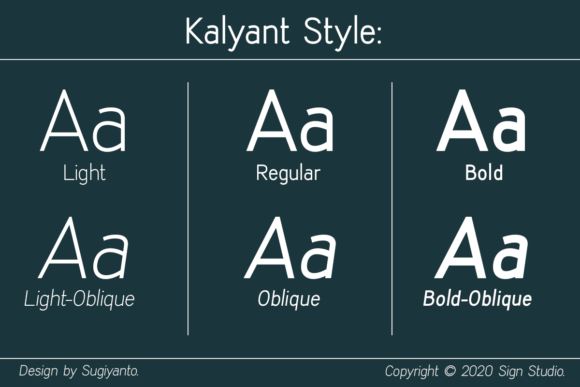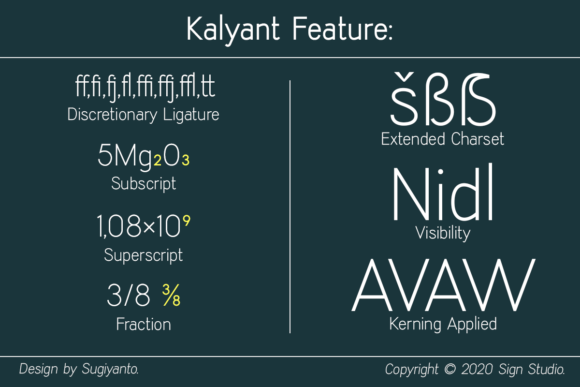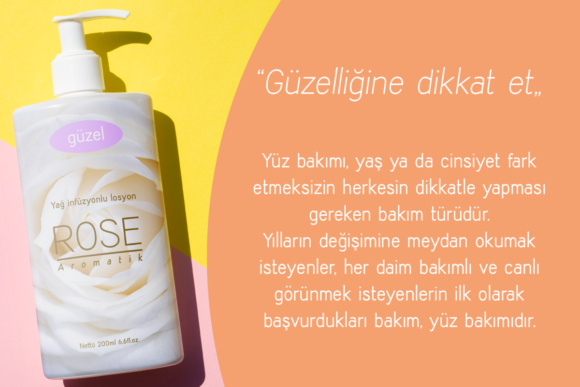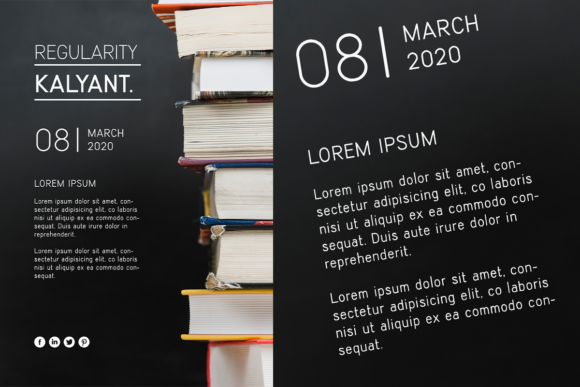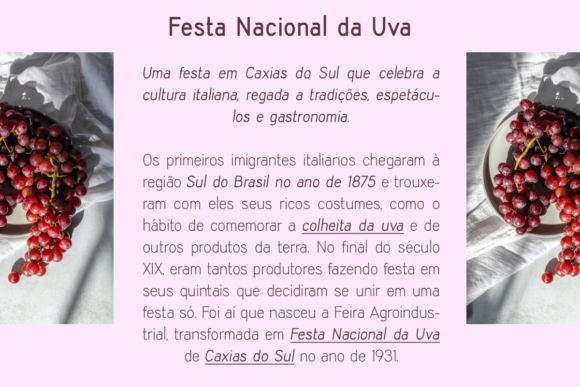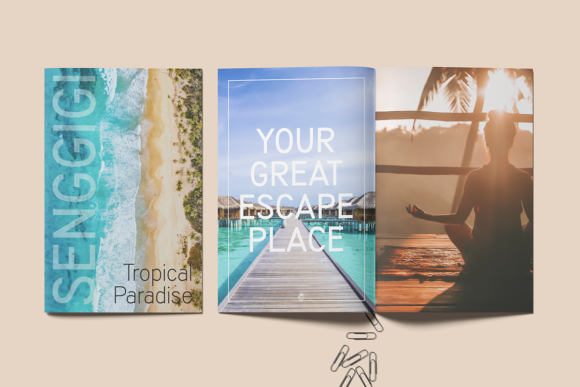
Introduction to Kalyant Font Font
Fonts play a crucial role in design, and the Kalyant Font font is a typeface that brings both character and versatility to any project. Whether you’re working on a branding project, a website, or a print design, the Kalyant Font font offers a unique style that can elevate your work.
Kalyant is a simple and casual sans serif font with an undeniably clean feel.
With its neat and beautiful arrangement of letters, this typeface will look outstanding in both formal and non-formal designs .
Key Features of Kalyant Font Font
Why Choose Kalyant Font Font?
The Kalyant Font font is more than just a typeface – it’s a design tool that helps you communicate your message with style and clarity. Its unique character set and versatile design make it suitable for a wide range of applications, from elegant invitations to bold headlines.
With its carefully crafted letterforms and balanced proportions, the Kalyant Font font ensures readability and visual appeal across all mediums.
What makes Kalyant Font font special?
The Kalyant Font font stands out with its unique design, exceptional readability, and versatility across various design applications.